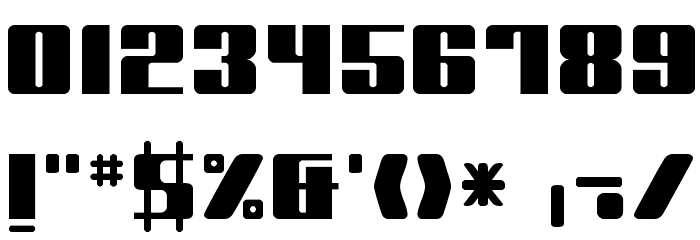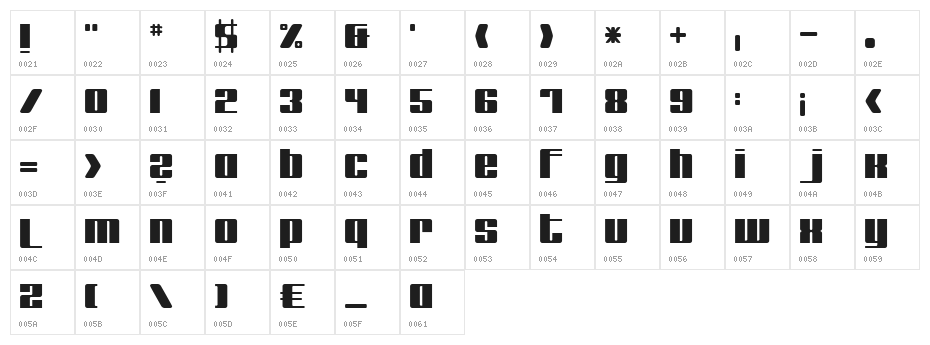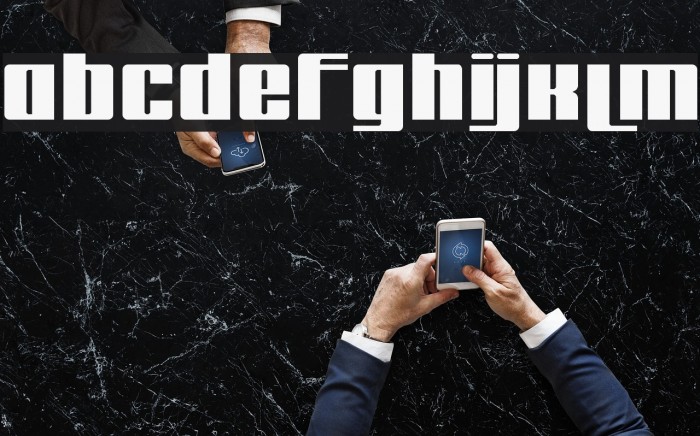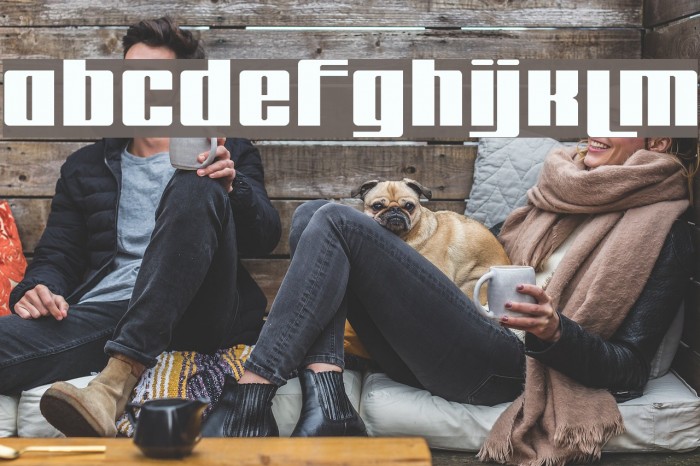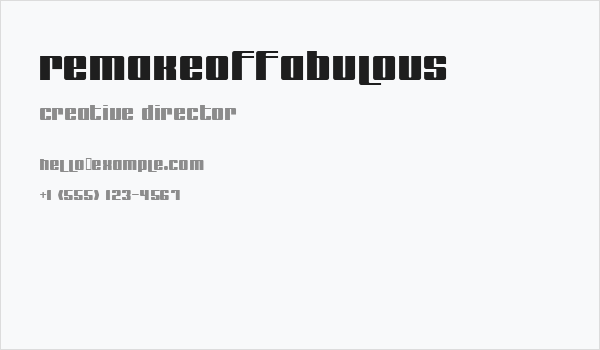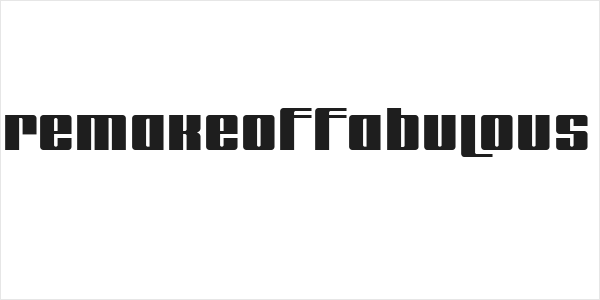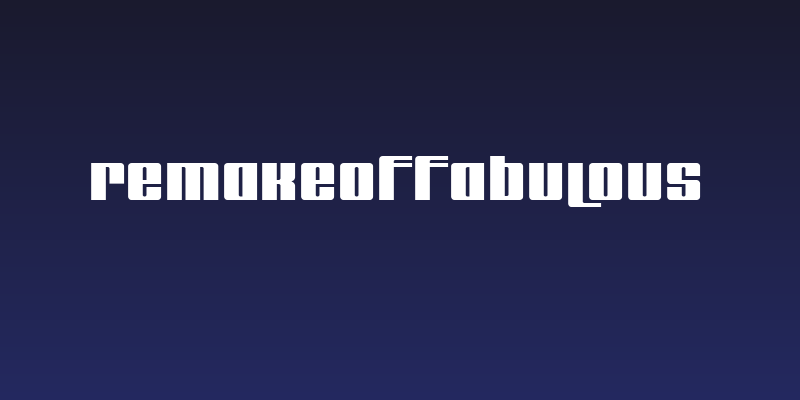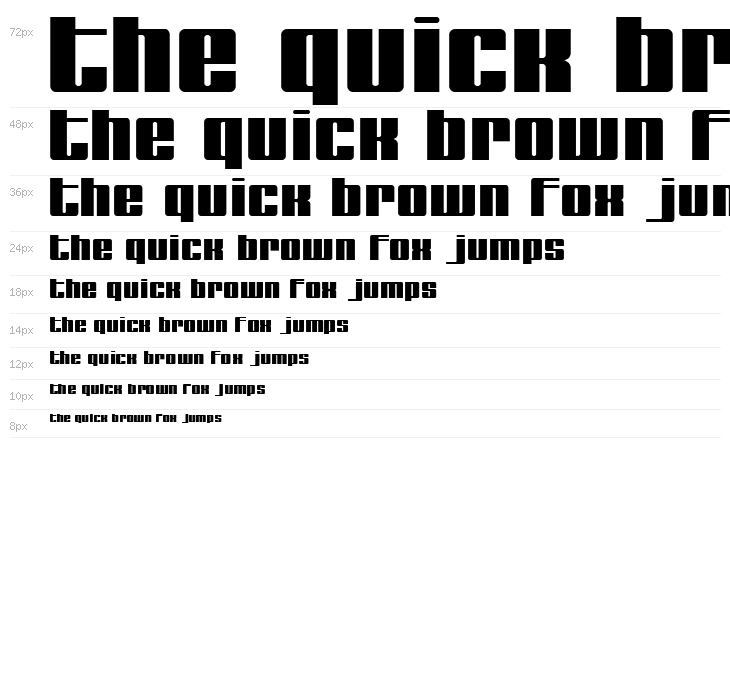
remakeoffabulous Font
remakeoffabulous Description
This font features a bold, geometric design with a strong presence. The characters are blocky and robust, with a uniform thickness that gives it a modern and industrial feel. The uppercase and lowercase letters maintain a consistent style, with sharp angles and a squared-off appearance. The numbers are similarly bold, ensuring readability and impact. Special characters are distinct and match the overall aesthetic, making this font suitable for attention-grabbing designs. Its solid structure and uniformity make it ideal for projects that require a strong visual statement.